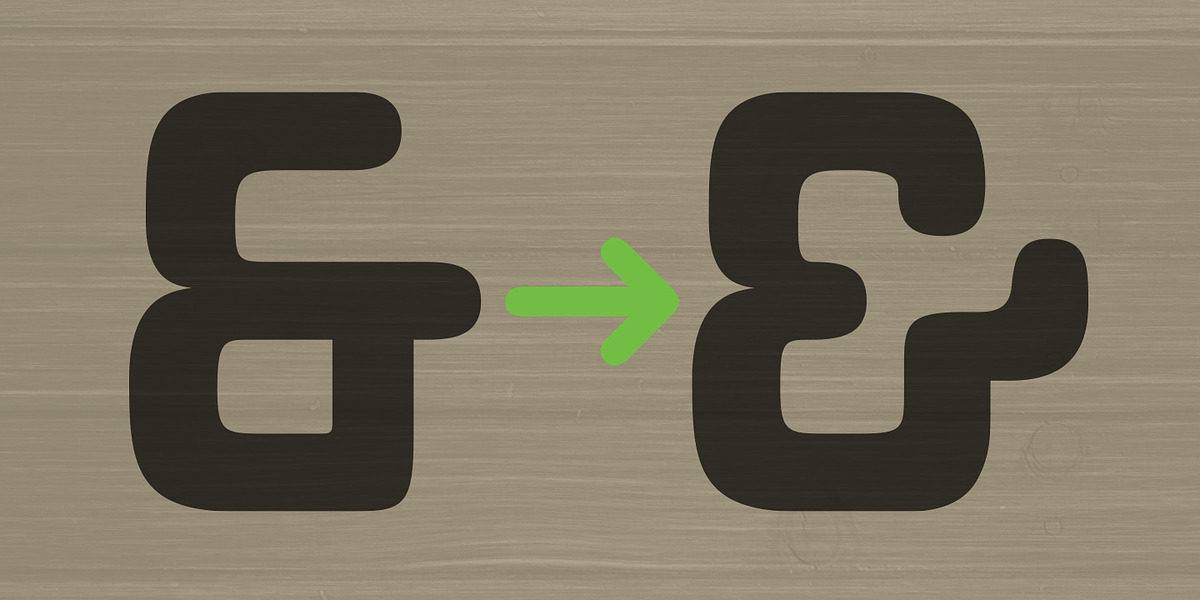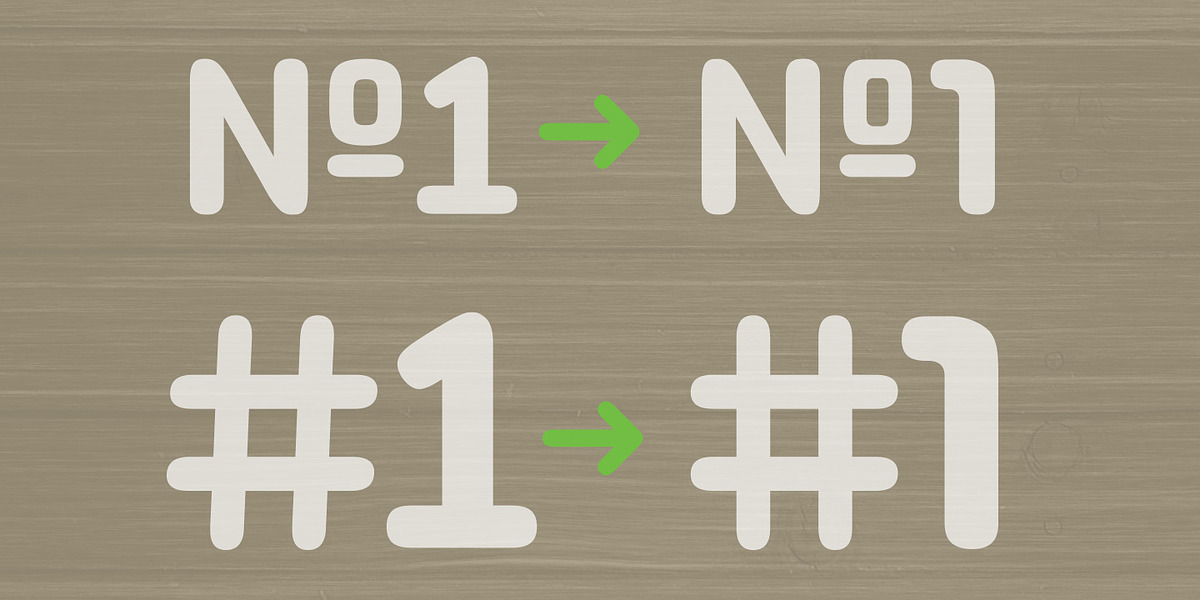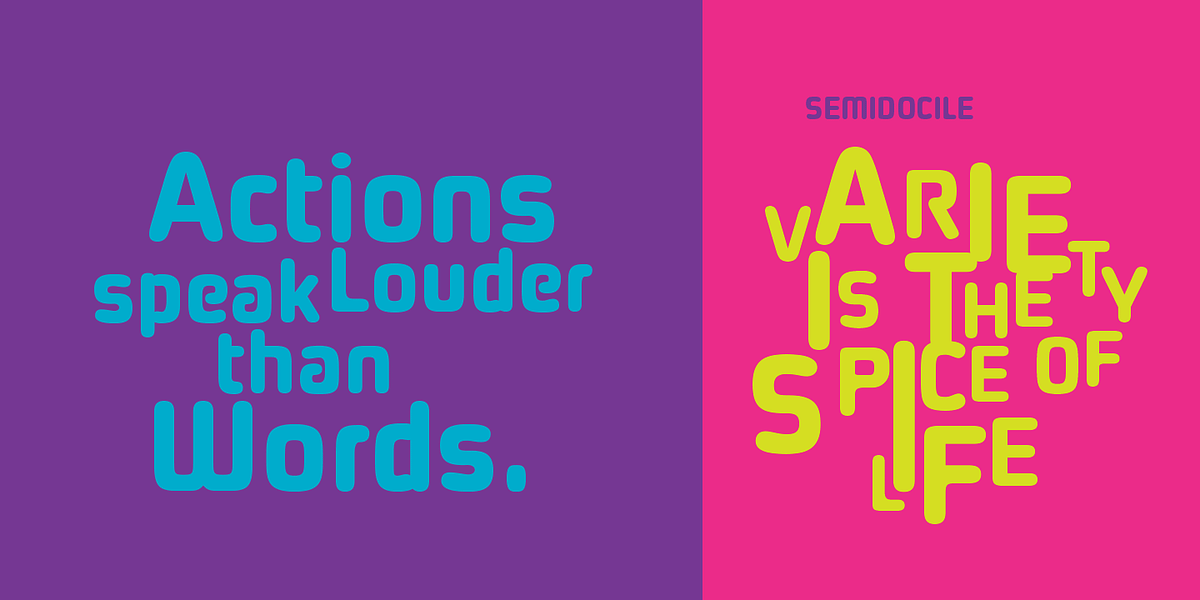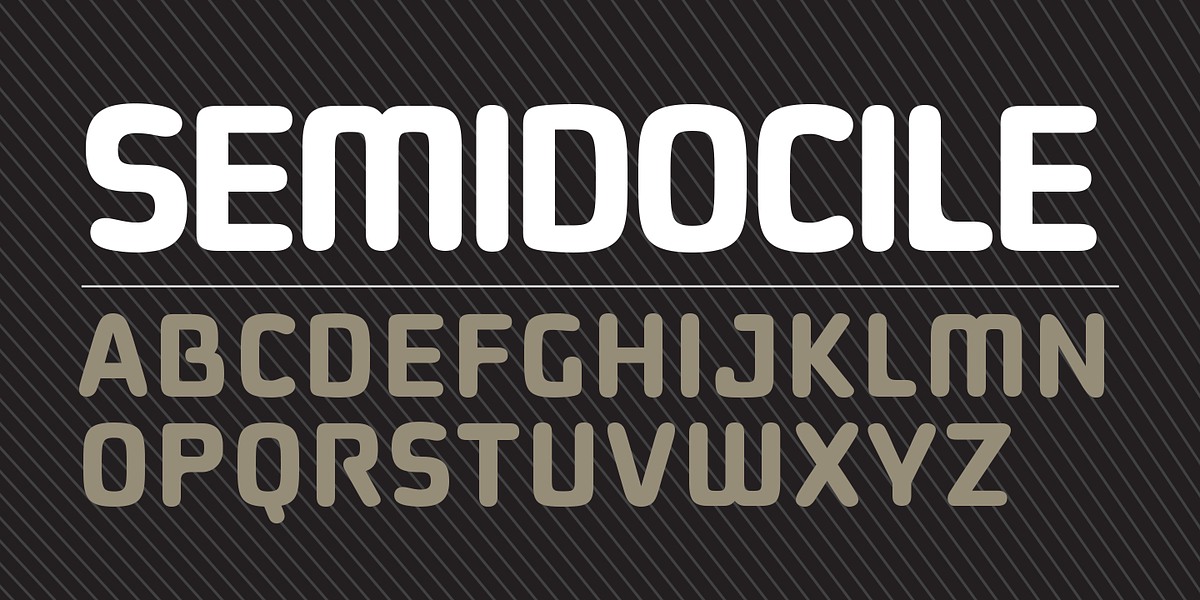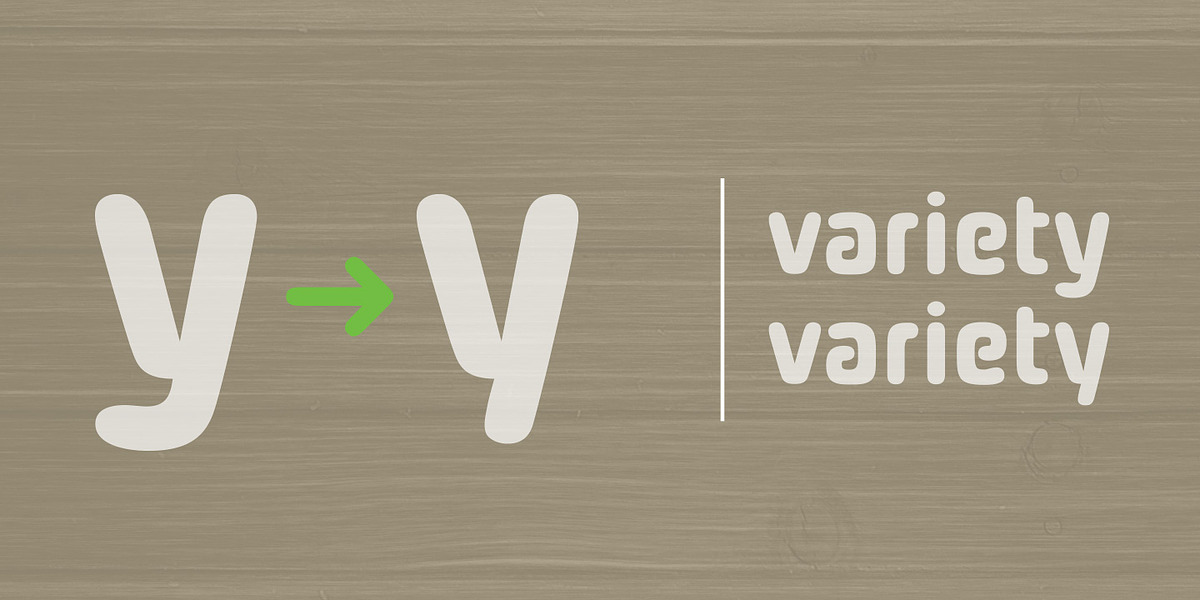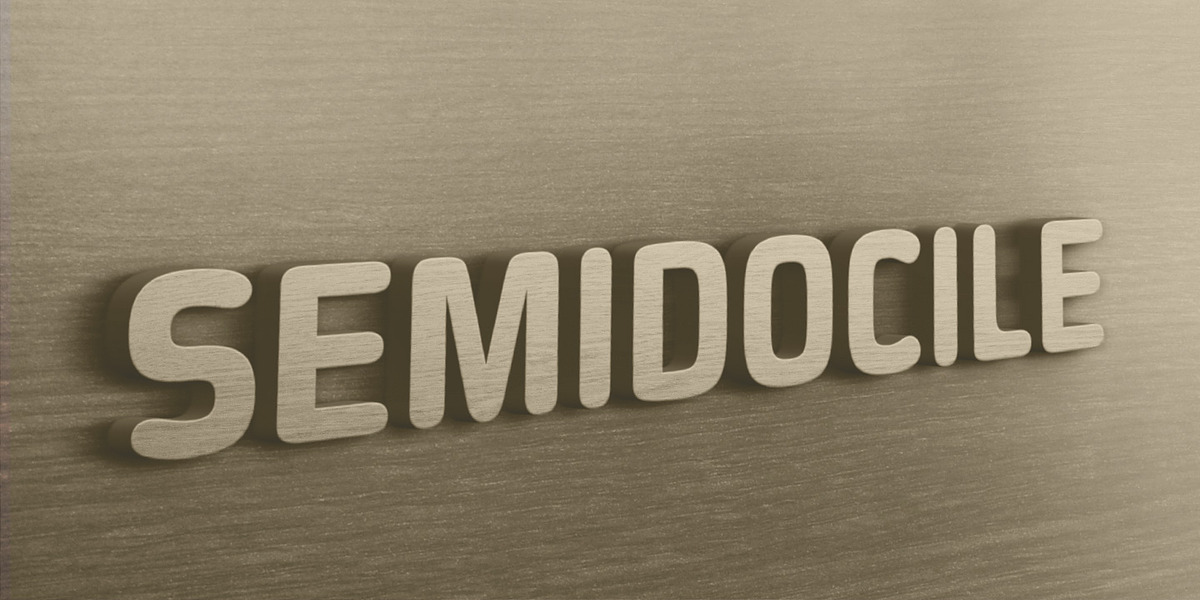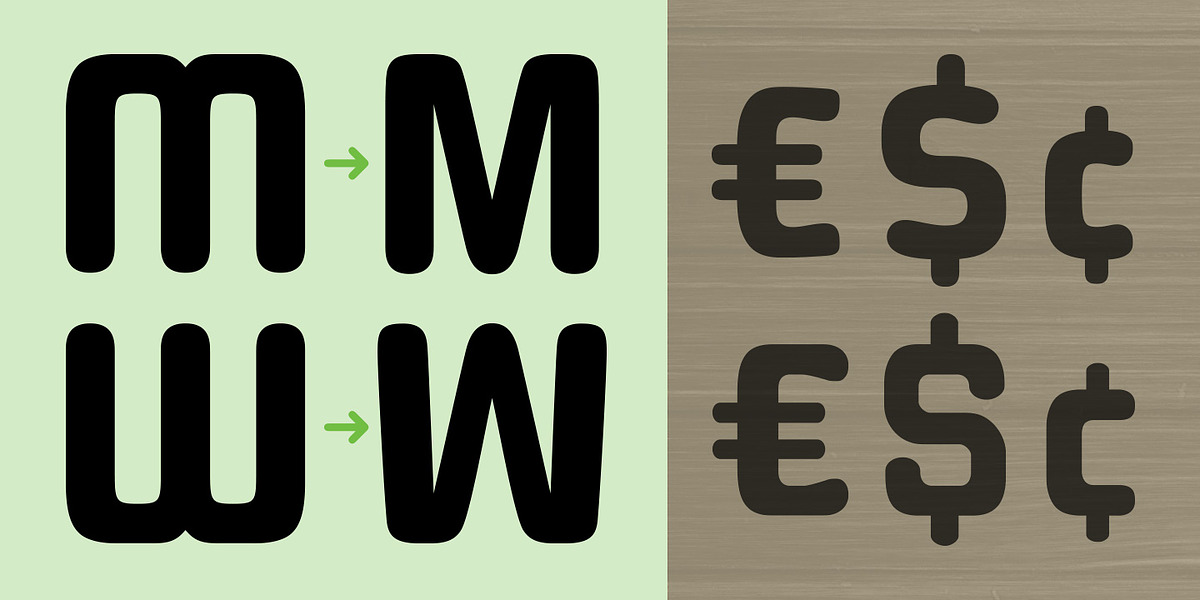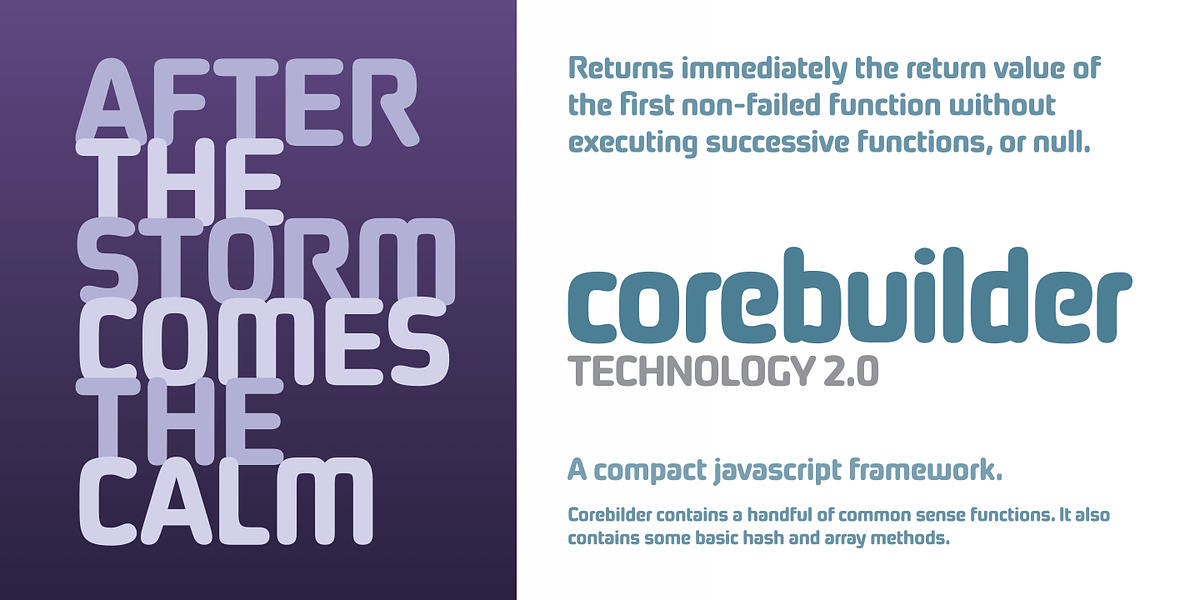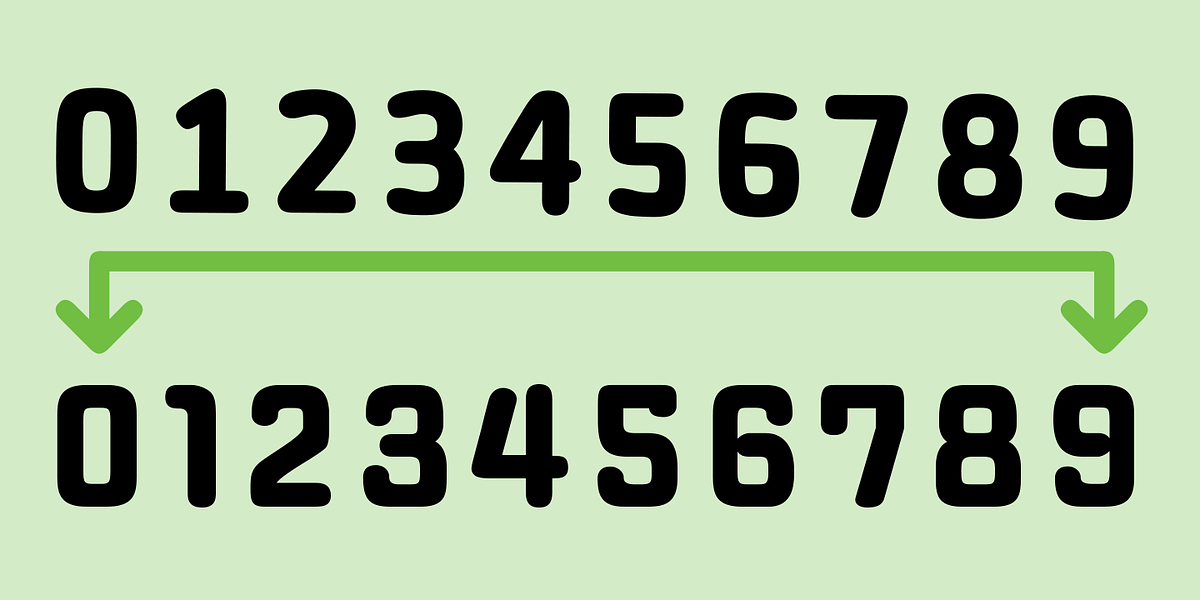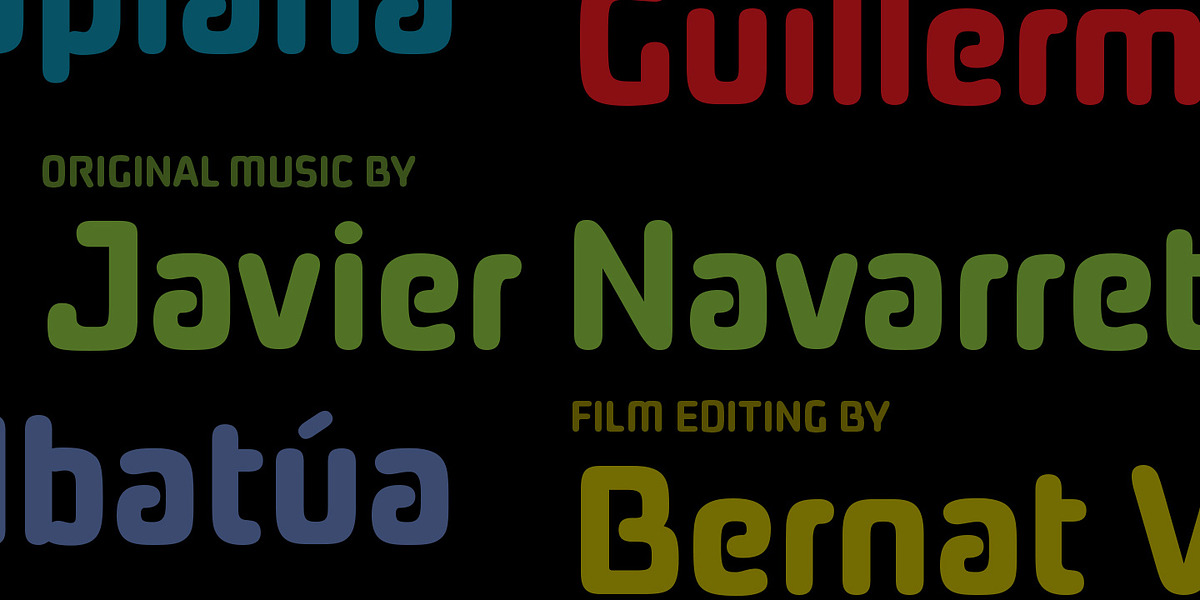
Semidocile
Semidocile is a modern sans serif typeface designed by John Merrifield. Its defining characteristic is its rounded letterforms, giving it a friendly and approachable appearance. The font has been carefully kerned for optimal readability and visual appeal. With support for most Latin and Western European languages and over 1400 glyphs, including a variety of symbols, Semidocile is well-suited for headlines, branding, and display applications.